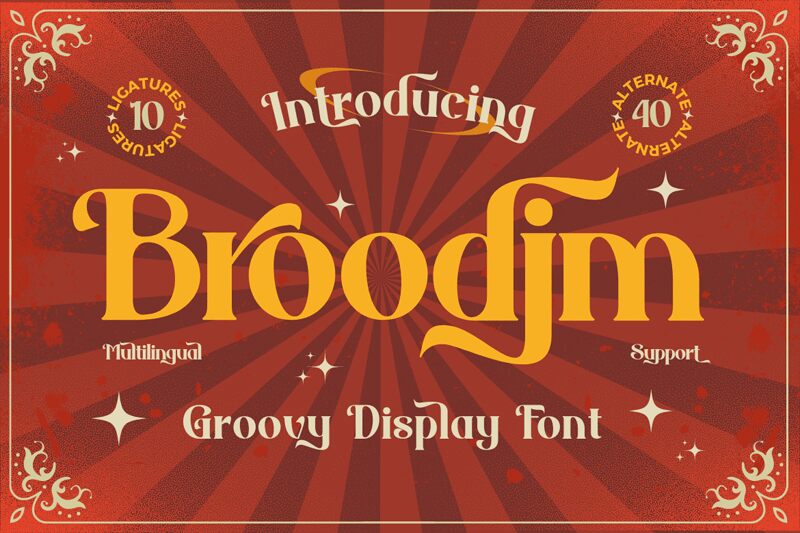
Broodim-Regular
Broodim font, designed by Twinletter, is a bold display free font that combines retro flair with modern elements. Its block-like characters bring a futuristic style to the table when used in large sizes. The font presents a unique touch in every way possible which makes it an attractive choice for individuals even without experience in graphic design.
Best suitable for logos and distinctive branding, this font can be applied catchy posters and flyers. Try it out in other format of advertisements including brochures and magazines or edit book covers especially the ones for children stories or comic series. It works perfectly in title intros of films and web series as well as games and video animations titles, typography art pieces too.